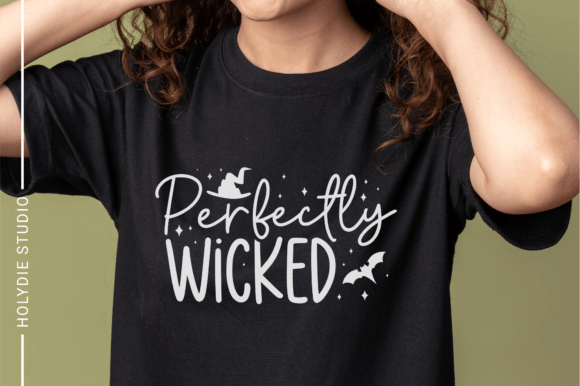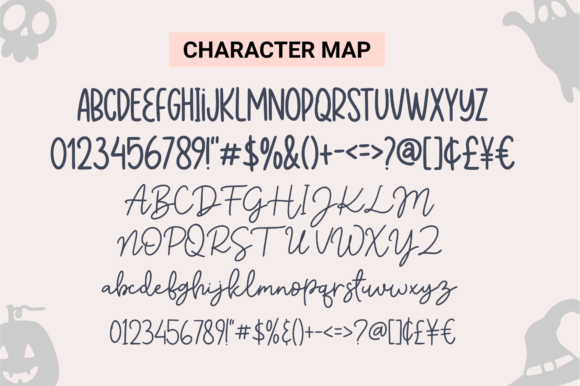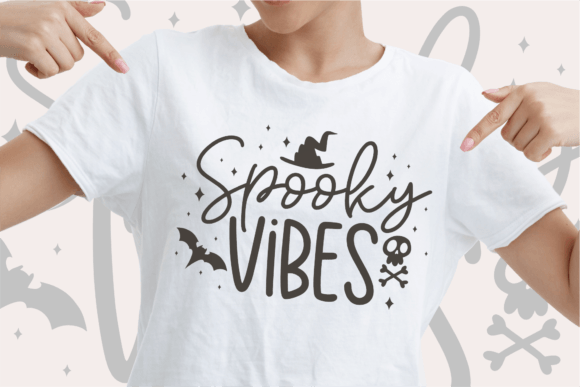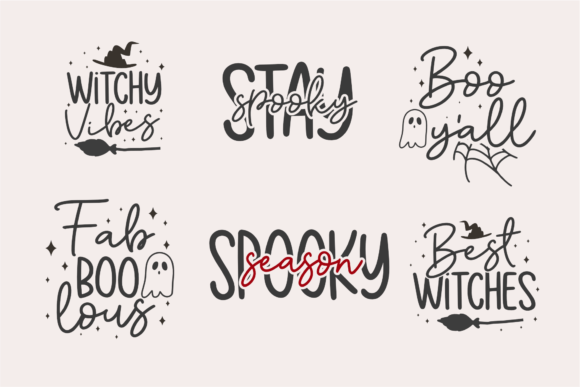
Introduction to Scary and Spooky Font
Scary and spooky is a fun and friendly font duo (script and sans serif).
Quirky and spooky, this font is perfect for all your Halloween-related projects .